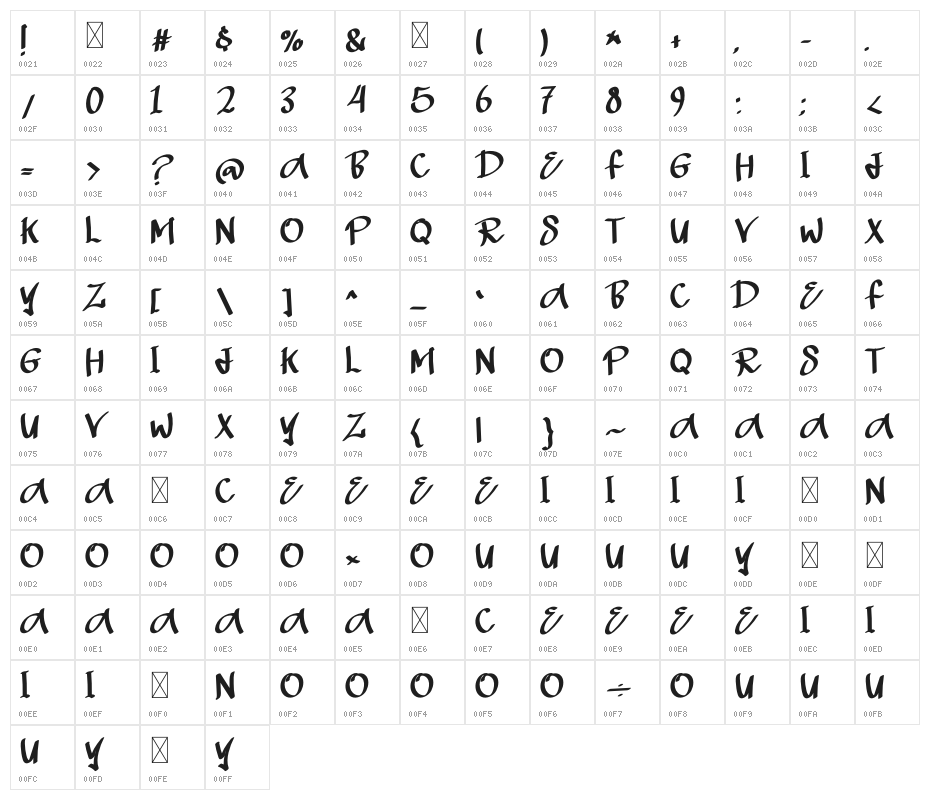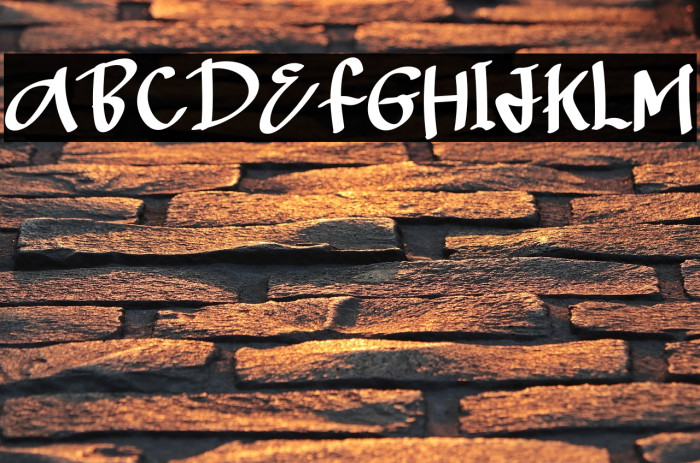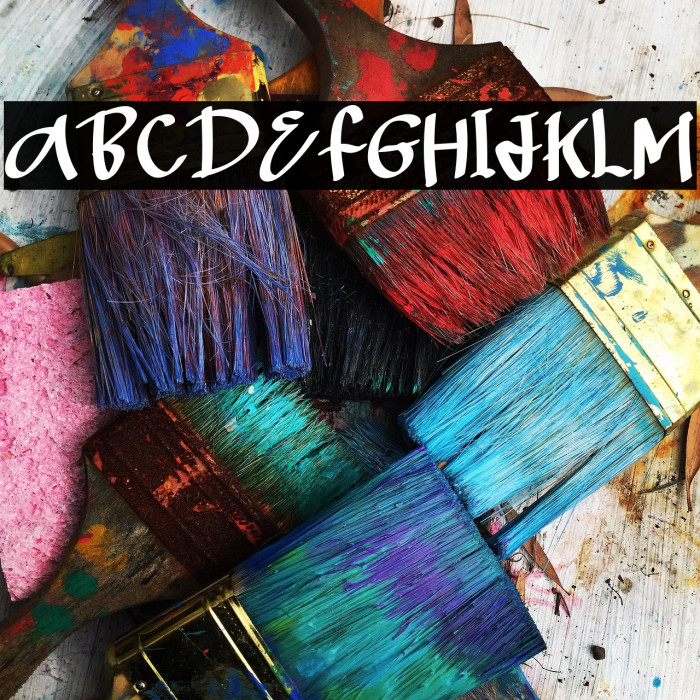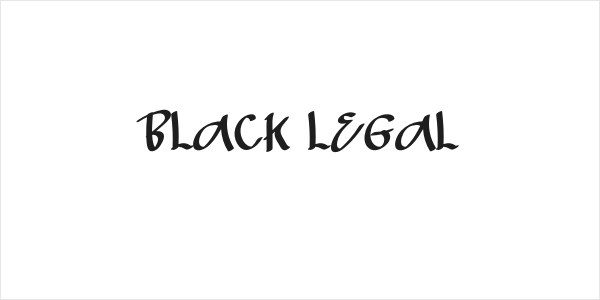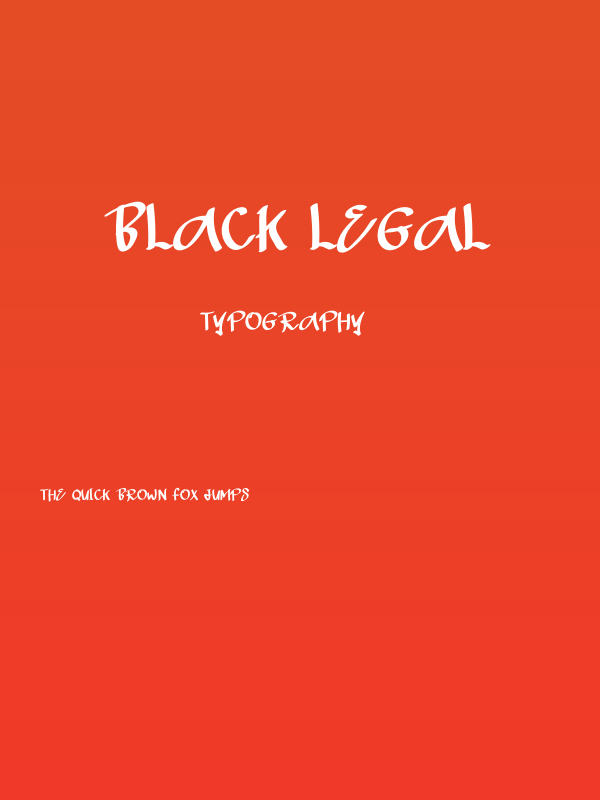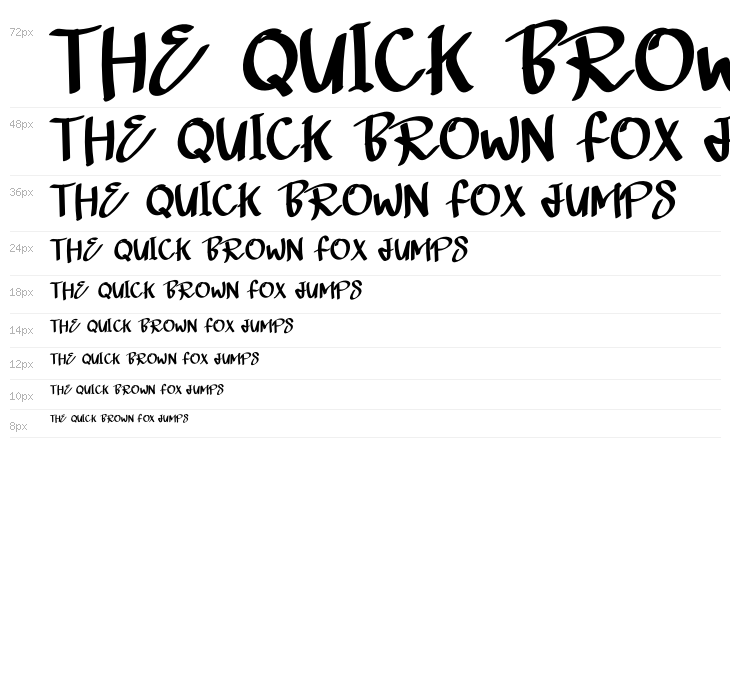
Black Legal Font
Black Legal Description
This font exudes a bold and dynamic presence with its brush script style. The characters are crafted with a sense of fluidity and motion, reminiscent of hand-painted lettering. The strokes are thick and expressive, providing a strong visual impact. Each letter maintains a consistent slant, enhancing the sense of movement and energy. The numbers and special characters follow the same stylistic cues, ensuring uniformity across the typeface. This font is ideal for projects that require a touch of creativity and flair, such as branding, posters, and artistic designs.
| Use Case | Logos, Headlines, Artistic designs |
| Proposed Projects | Branding, posters, artistic designs, invitations, and creative advertising. |